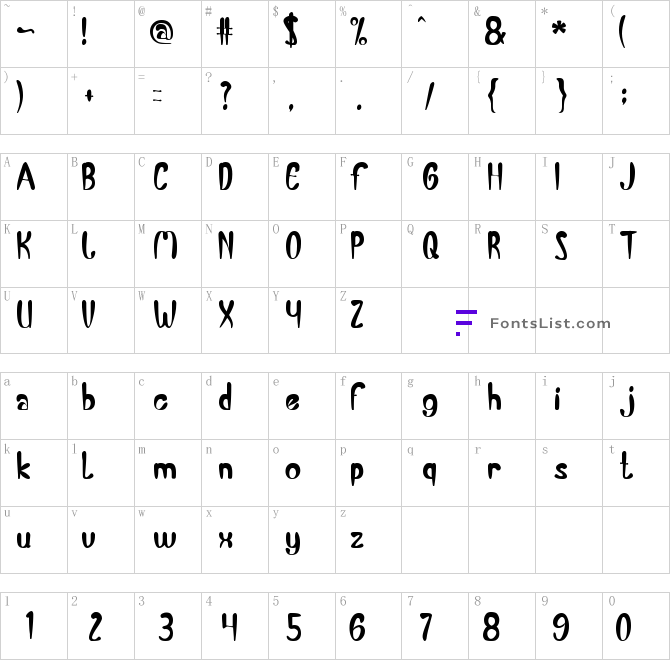
- Font Name:Banana Split
Banana-Split.ttf is a very beautiful artistic font, Banana-Split.ttf is widely used in the design and printing of various books and pictures,Banana-Split.ttf has a strong visual impact,Banana-Split.ttf is a commonly used font in newspapers, magazines and books, and is used in posters, e-commerce Poster design, store design, logo design, font design and other fields.Banana-Split.